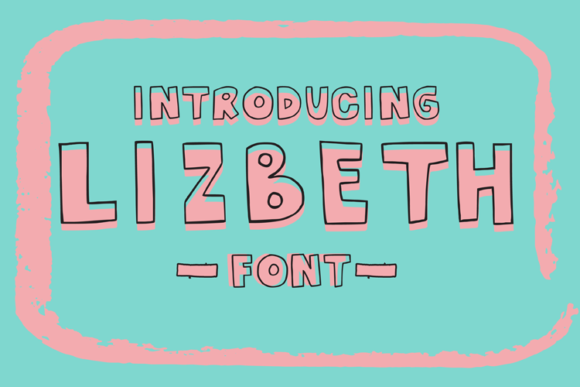
Prepare to be mesmerized by the enchanting Lizbeth Font, a true masterpiece that will elevate your designs to breathtaking heights.
At the heart of the Lizbeth Font lies a meticulously handcrafted outline, whispering elegance and charm into each letterform. Its intricate strokes, meticulously drawn by the skilled hand of carrtoonz, dance across your screen, creating an aura of sophistication that is simply irresistible.
Whether you're crafting captivating posters that demand attention or designing book covers that ignite imaginations, the Lizbeth Font is your perfect companion. Unleash its potential to transform ordinary words into extraordinary works of art.
But the Lizbeth Font's allure extends far beyond its aesthetic appeal. It's a versatile chameleon, adapting effortlessly to a myriad of creative endeavors. Pair it with other fonts to achieve harmonious blends that will turn heads and leave a lasting impression.
So why settle for ordinary when you can immerse yourself in the extraordinary? Embrace the Lizbeth Font today and let your creativity soar to new heights. Its undeniable charm and versatility will captivate your audience, leaving them spellbound by the enchanting beauty of your designs.